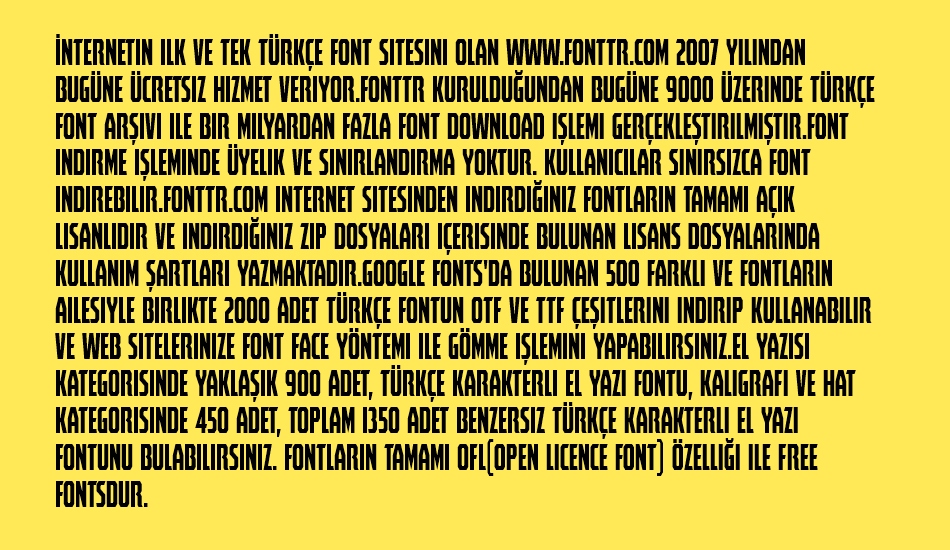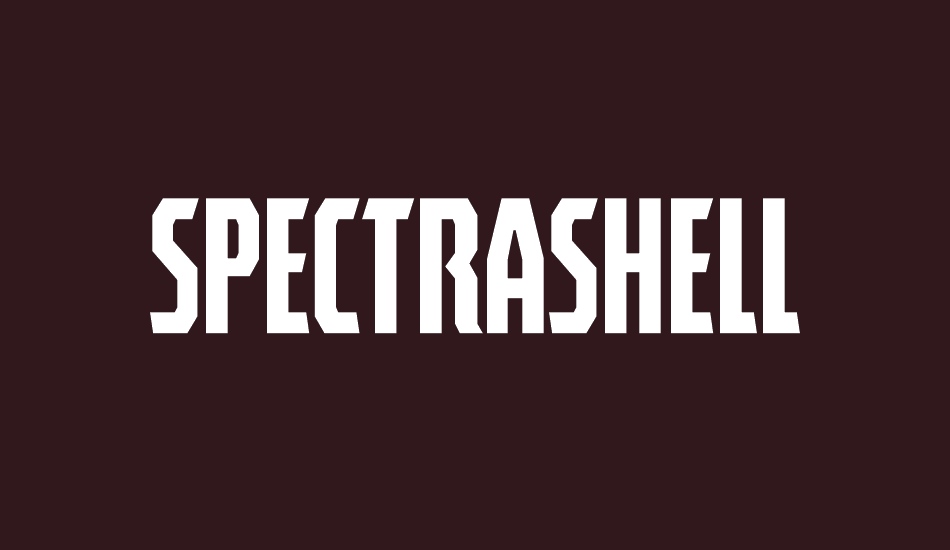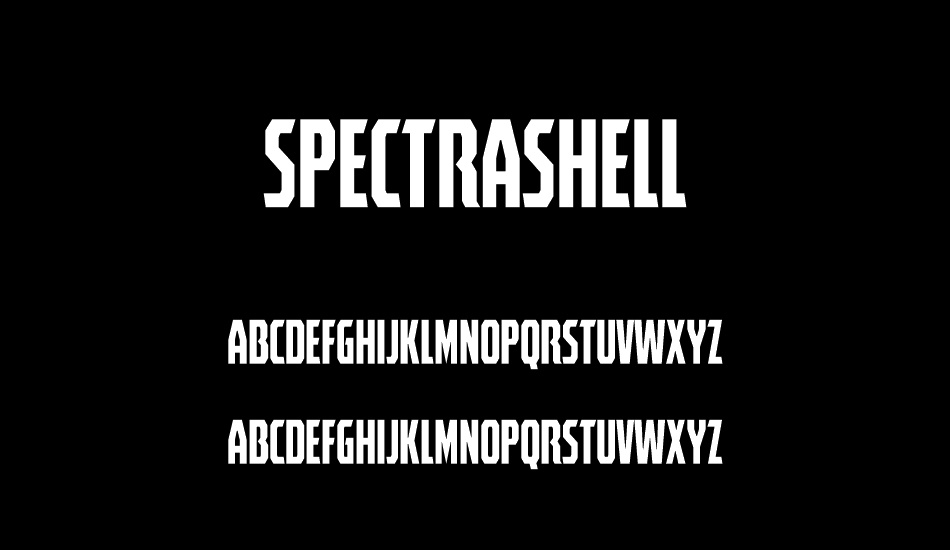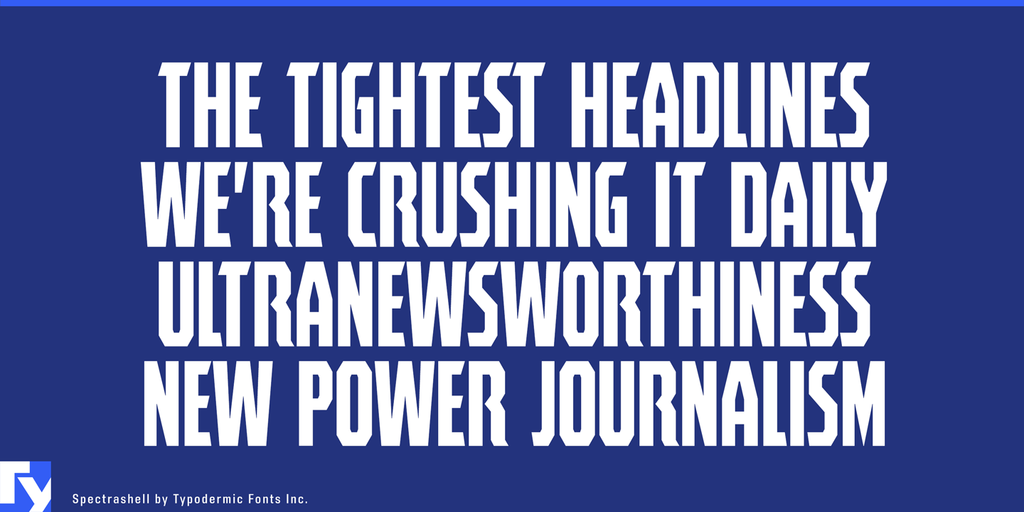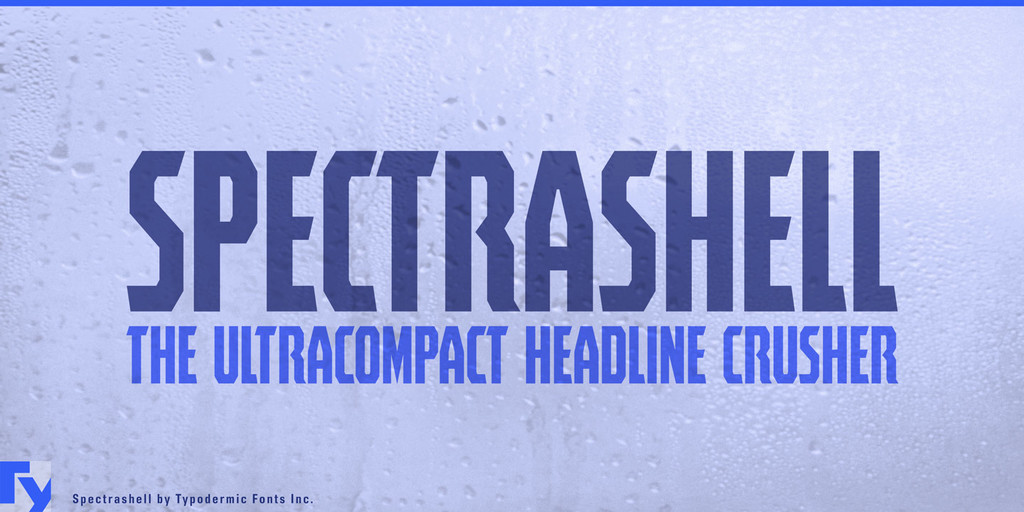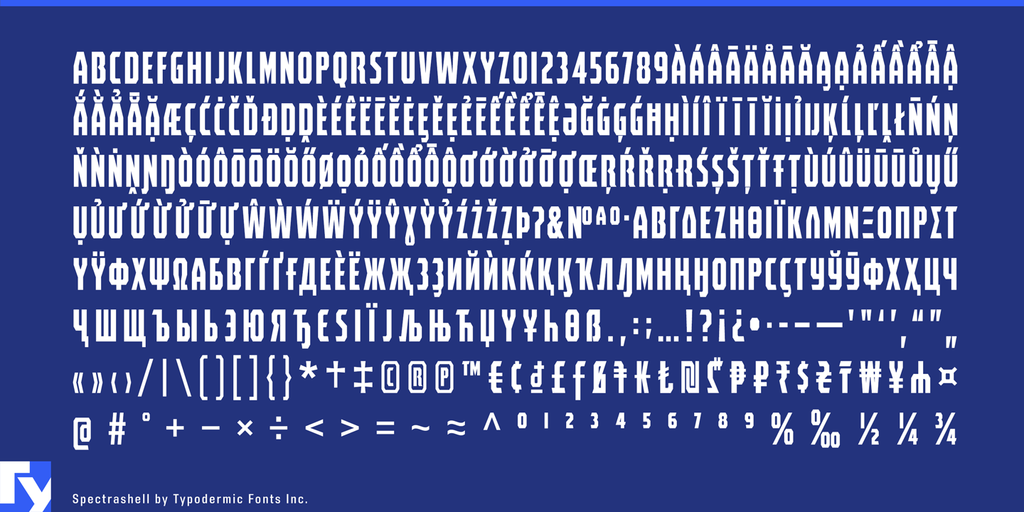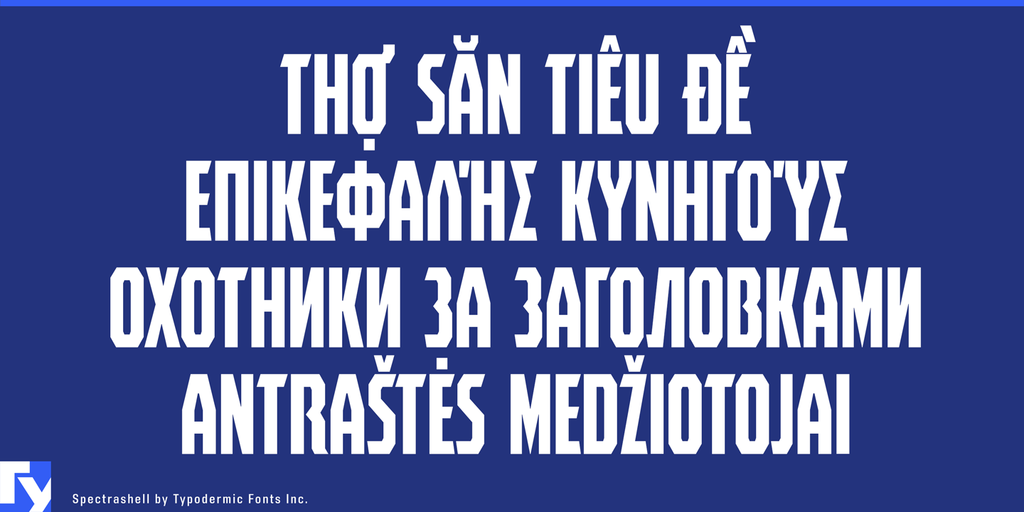
Spectrashell font
Spectrashell Fonts
Spectrashell is a compact headline crammer—heavy capitals designed for maximum impact with sharp angles that are impossible to ignore. Spectrashell began as a logotype for a brand of rugged, hard-shell, waterproof passport cases. The logo was required to fit tightly inside a metal stamped hexagonal badge only 20mm wide. The letterforms needed clear, obvious cuts to compensate for detail lost during the stamping process. These waterproof passport cases have a strong hexagonal pattern. The typeface’s angles were designed to harmonize with hexagons—consider pairing this typeface with hexagonal themes and patterns. Almost all current Latin based languages are supported, including Vietnamese, Cyrillic languages and Greek.